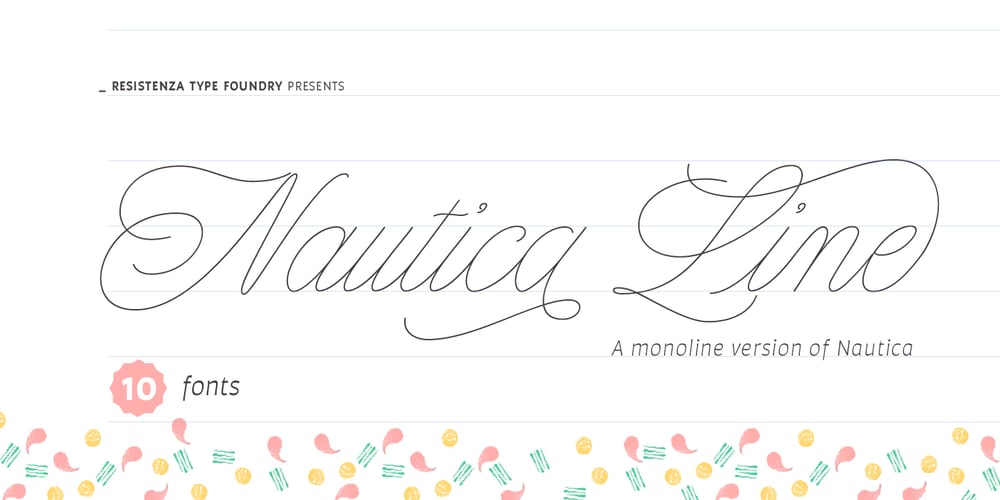
Nautica Line
Nautica Line font
Nautica Line Font Family was designed by Giuseppe Salerno, Paco González and published by Resistenza. Nautica Line contains 10 styles and family package options. Introducing Nautica Line Font, a dynamic typeface family born from the legacy of Nautica font. Drawing inspiration from copperplate calligraphy, Nautica Line maintains the graceful essence of its predecessor while introducing a modern twist. Unlike the traditional broad nib pen used in Nautica, Nautica Line adopts the sleek precision of a rollerball pen, resulting in refined lines with reduced contrast.With a collection of 10 fonts and two versions – Nautica Line and Nautica Line Noodle – this typeface offers versatility and creativity for design projects. The Noodle variant distinguishes itself with rounded terminations, adding a soft and friendly aesthetic to the characters.Each style within Nautica Line Font family comes with five different thicknesses, ranging from delicate hairlines to bolder strokes. This variety empowers designers to experiment with diverse visual expressions, catering to the demands of various design contexts.With extensive OpenType capabilities, including contextual alternates, standard ligatures, and stylistic alternates. These features are accessible through the OpenType panel, providing designers with ample opportunities to customise and enhance their typographic compositions.The font’s versatility makes it well-suited for a wide array of design applications. Whether it’s branding, packaging, invitations, or editorial design, Nautica Line Font lends a distinctive and sophisticated touch to visual elements. Its unique characteristics and comprehensive features enable designers to craft captivating and elegant designs that stand out.Nautica’s availability as a webfont extends its utility to digital design endeavors, including websites and online branding initiatives. Whether gracing the pages of print publications or enhancing the digital realm, Nautica Line Font is a creative tool that empowers designers to elevate their projects with timeless elegance and modern flair.